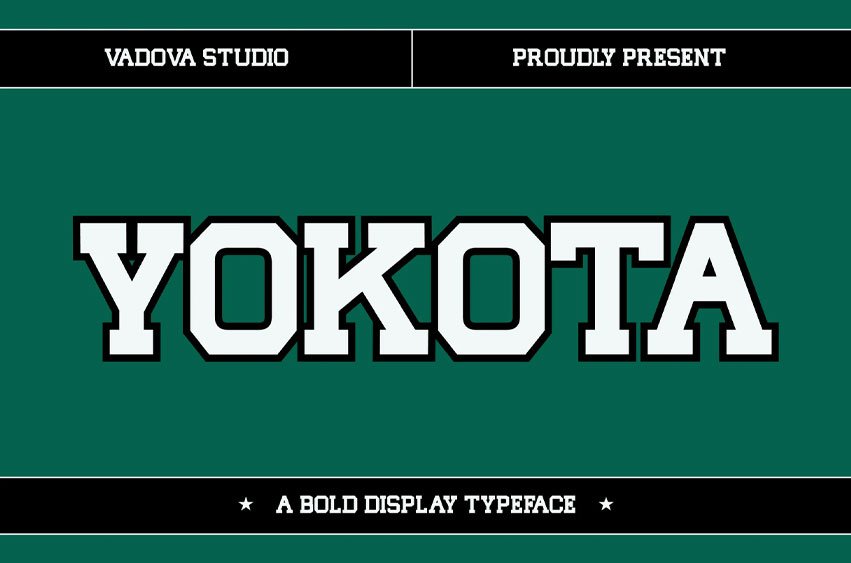
Yokota Font Elevate your designs with Hendritage, a font perfect for adding elegance and style to your projects. Whether it’s for quotes, logotypes, magazine headers, or more, this versatile typeface ensures your text stands out beautifully.